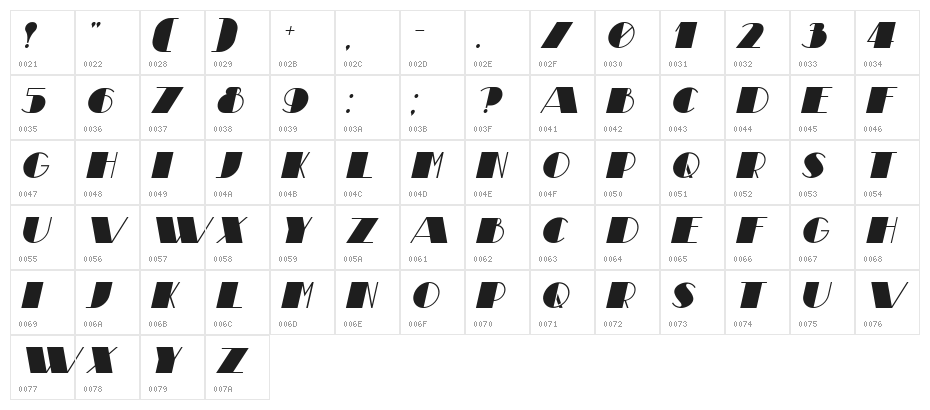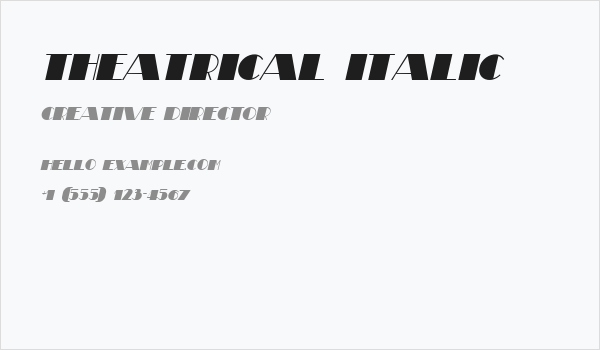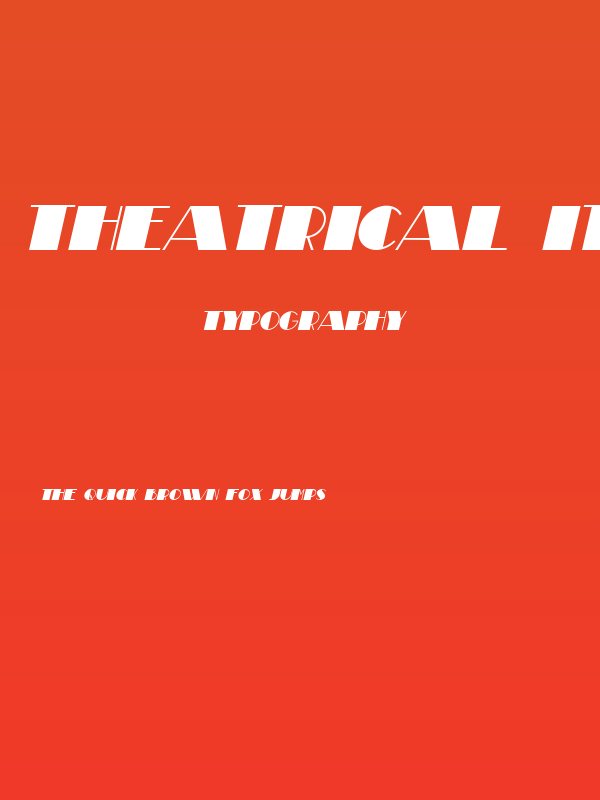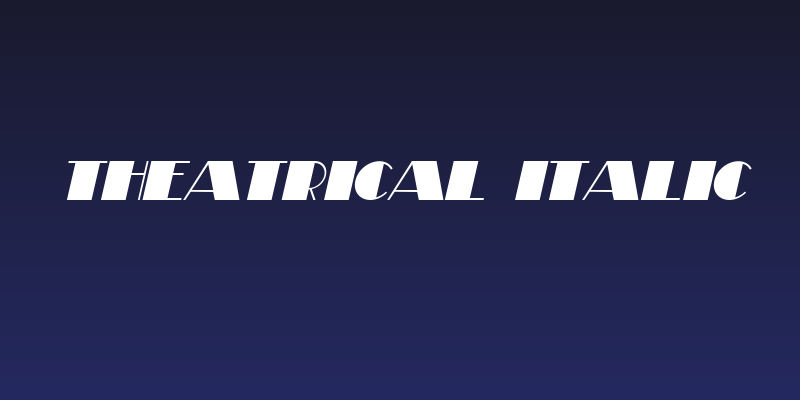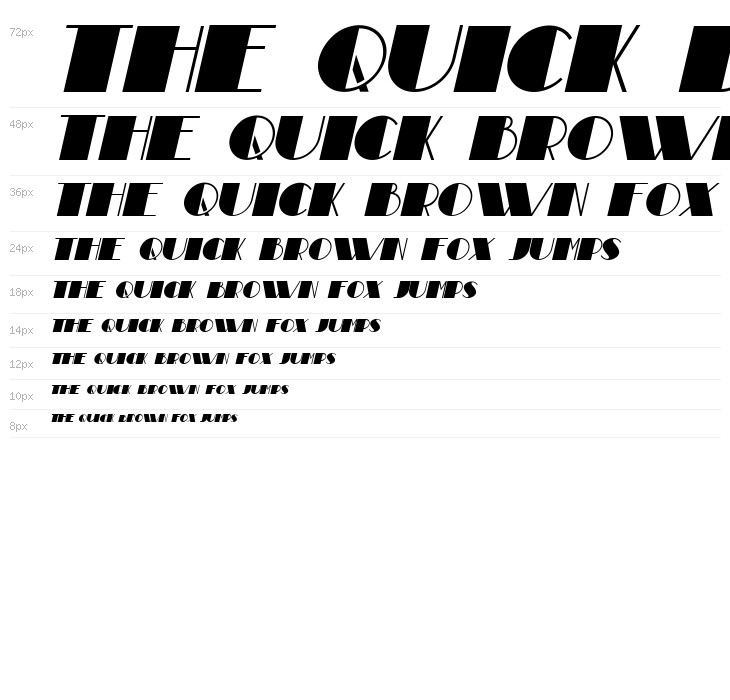
Theatrical Italic Font
Theatrical Italic Description
This font exudes a bold and dramatic flair, characterized by its sharp, angular lines and pronounced slant. The uppercase letters are particularly striking, with a mix of thick and thin strokes that create a sense of movement and energy. The lowercase letters maintain this dynamic style, offering a cohesive look throughout. Numbers and special characters follow the same design principles, ensuring consistency. The overall aesthetic is both theatrical and modern, making it ideal for attention-grabbing headlines or artistic projects.
| Proposed Projects | Perfect for theatrical posters, modern art projects, branding materials, and any design requiring a dramatic flair. |